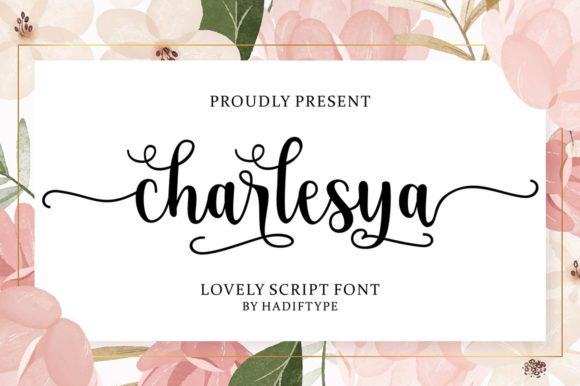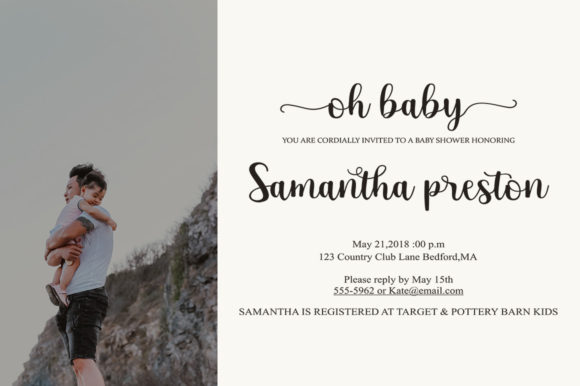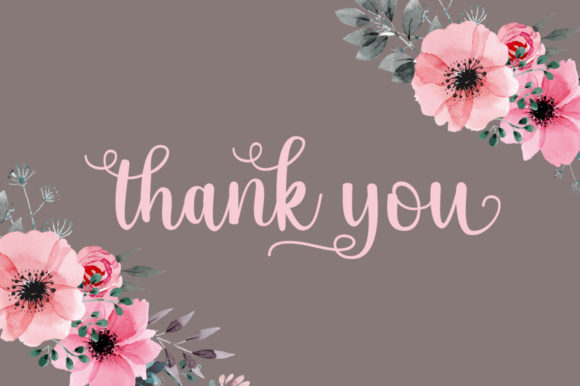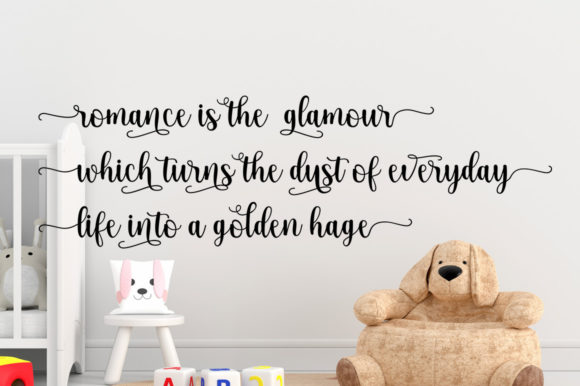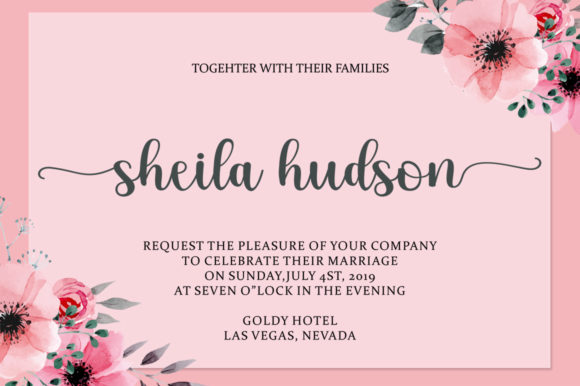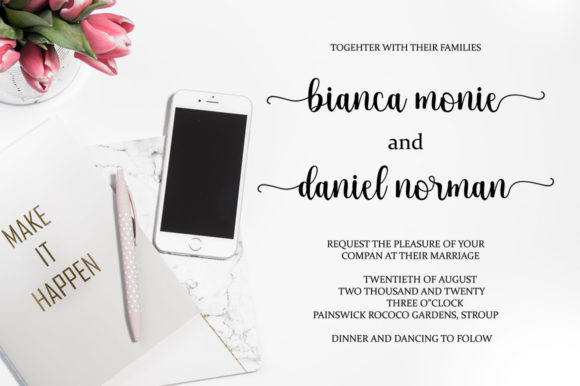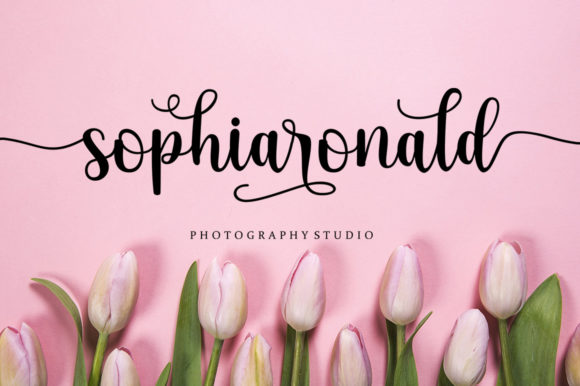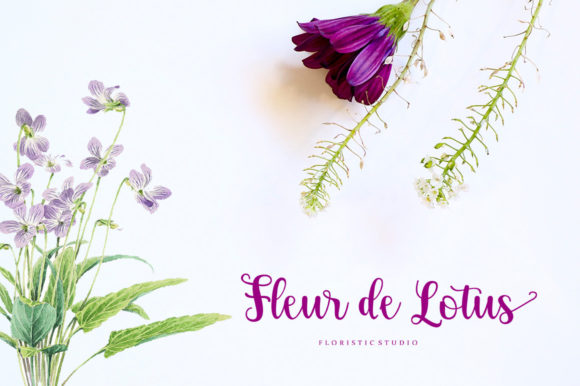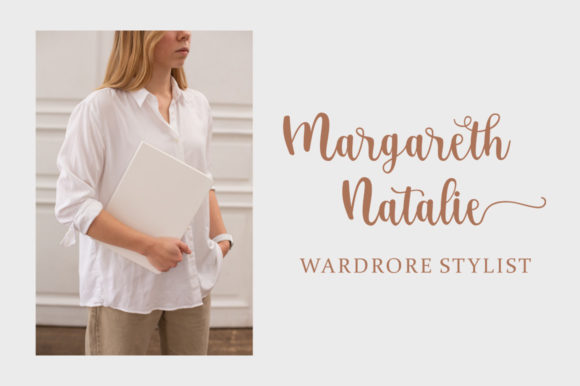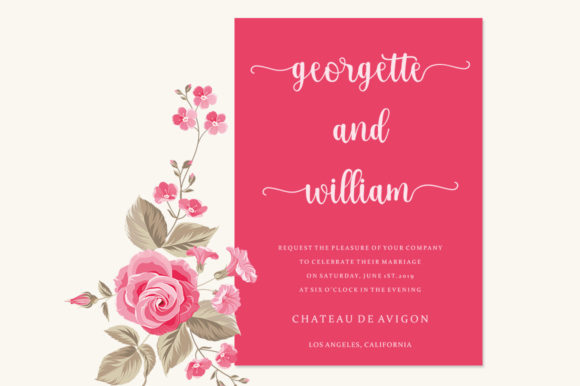
Cherlesya Script Font
About Cherlesya Script Font
Cherlesya Script is a dainty and flowing handwritten font. Add this romantic and lovely looking font to each of your love letters, wedding invitations or favorite design ideas, and you will be astounded by the outcome.